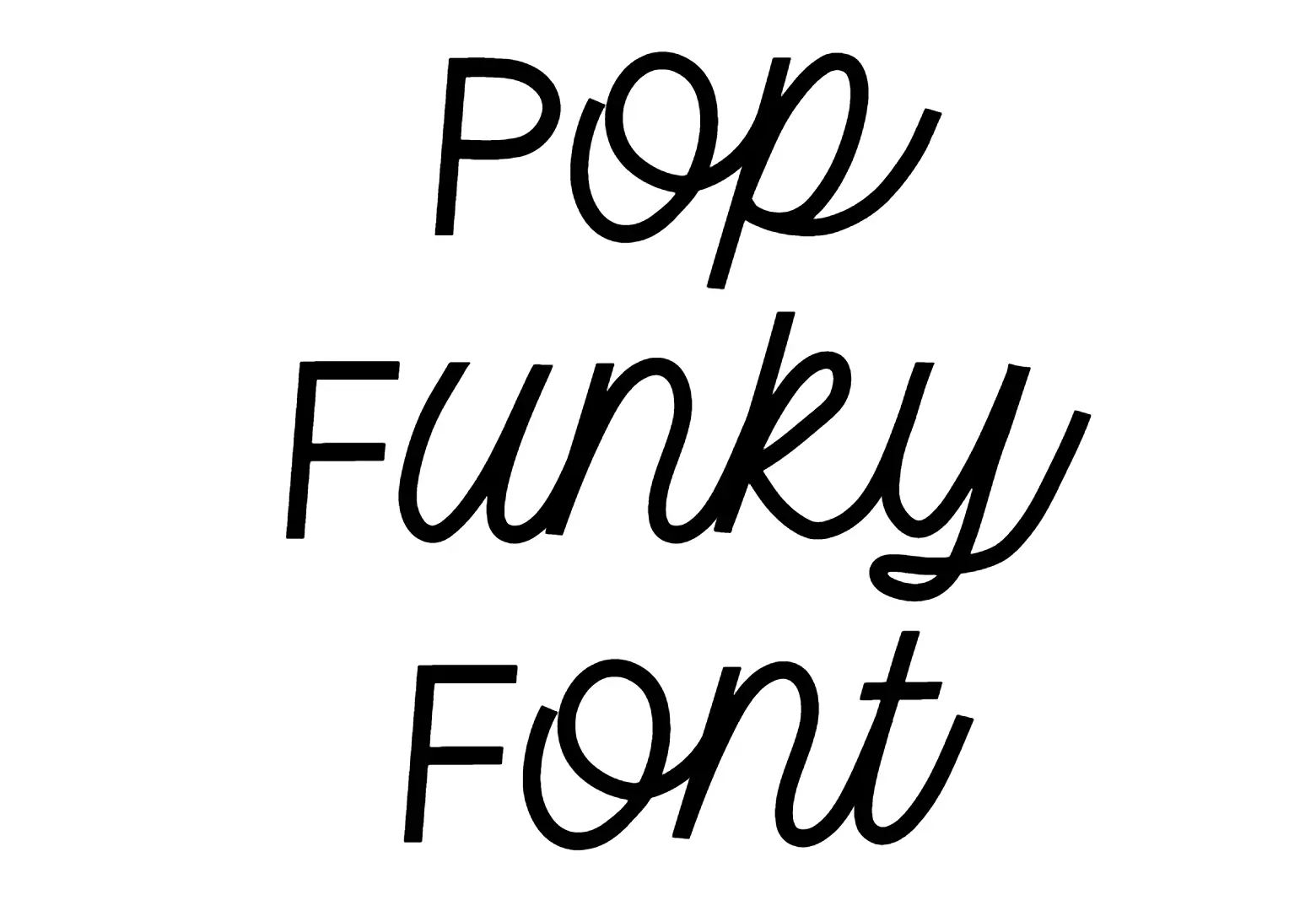
Pop Funky
Pop Funky is a fancy font designed by Riyadh Rahman. Bold and full of character, it's built to stand out rather than blend in. You can download it for free and test it with your own words in the preview above.
- Glyphs: 239
- OpenType features: 2 stylistic sets
- Extra characters: 8 copy-and-paste alternates (Private Use Area)
What You Can Type With Pop Funky
With complete upper and lowercase letters and all ten digits, Pop Funky is ready for real wording, not just a single headline. Everyday marks like &, !, ? and @ are there too. Thanks to its accented letters, it also works for Spanish, French, German, Portuguese and Italian, not just English.
Where Pop Funky Works Best
Think of Pop Funky for posters, logos and eye-catching headlines. Use it for one standout word or headline and let simpler fonts handle the rest.